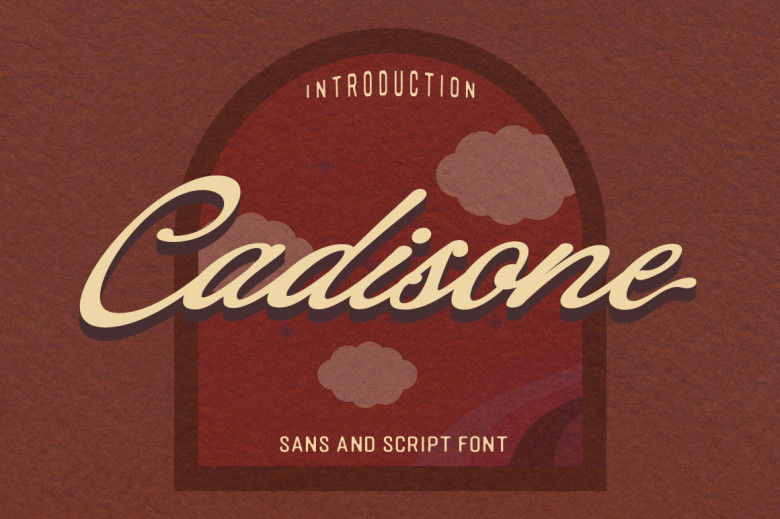
Cadisone Font
Cadisone is a retro script that is perfect for creating warm and friendly environments and perfecting your amazing projects. it’s perfect for your headline, logo, and much more.
Cadisone Script Font